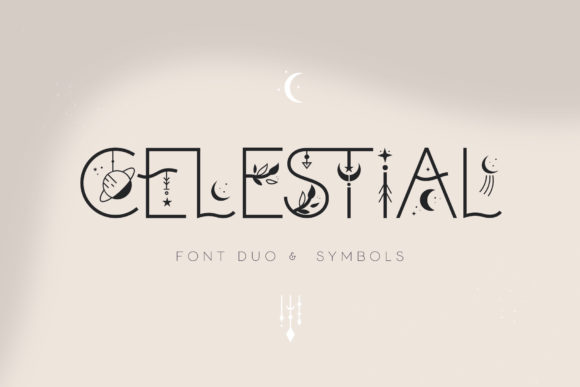
Introducing the Celestial Font, the perfect addition to any creative project you have in mind! Created by Favete Art, this splendid font family consists of decorative, sans serif, and dingbats styles that are sure to elevate the look of any item you apply it to.
If you're looking for a font that is inspired by celestial motifs, boho styles, mystery, and astrology, then Celestial is the perfect choice for you. It's the best font for beer mug designs, providing a unique and eye-catching touch to any beverage container.
But don't let its beer mug capabilities limit you! Celestial is versatile and suitable for any creative project you have in mind. From logos to invitations, posters to social media graphics, Celestial will give your work a mystical and captivating touch.
Not only is Celestial a visually stunning font, but it also has an emotional impact on its users. Its celestial motifs and mysterious qualities evoke feelings of wonder and awe. It's perfect for those who want to add a touch of magic to their projects and stand out from the crowd.